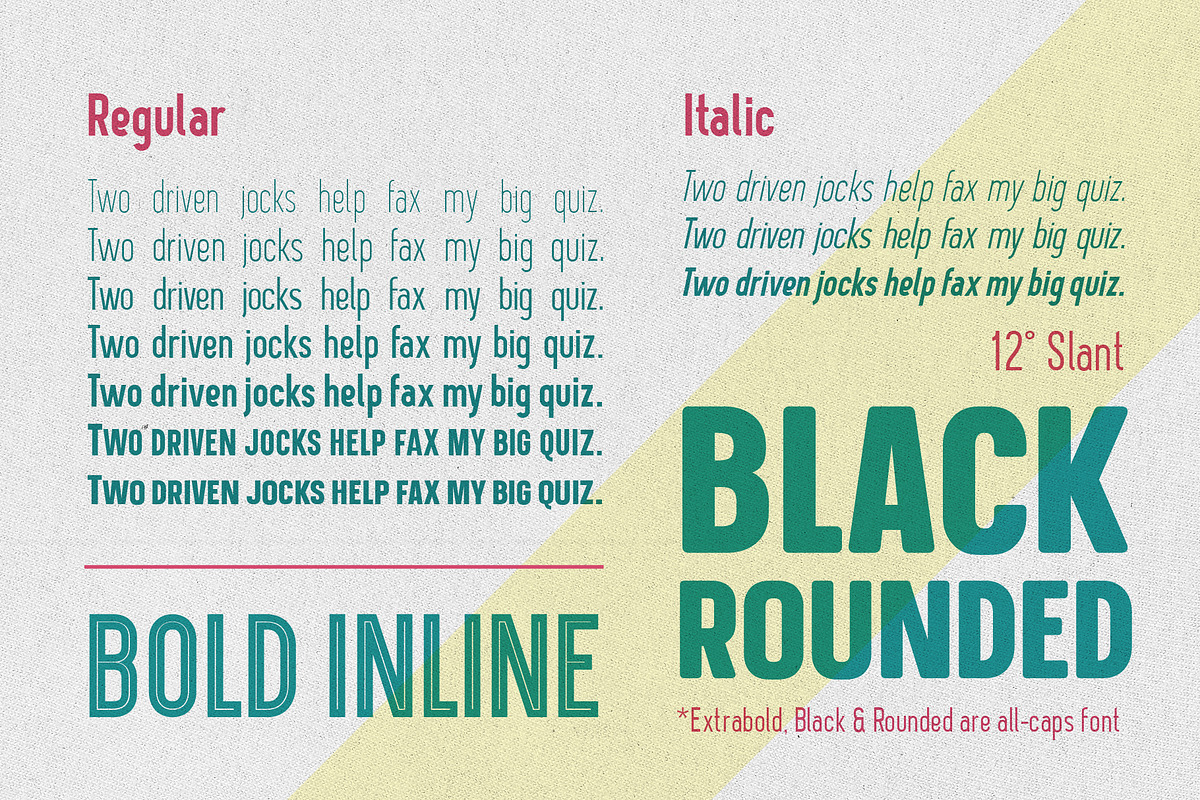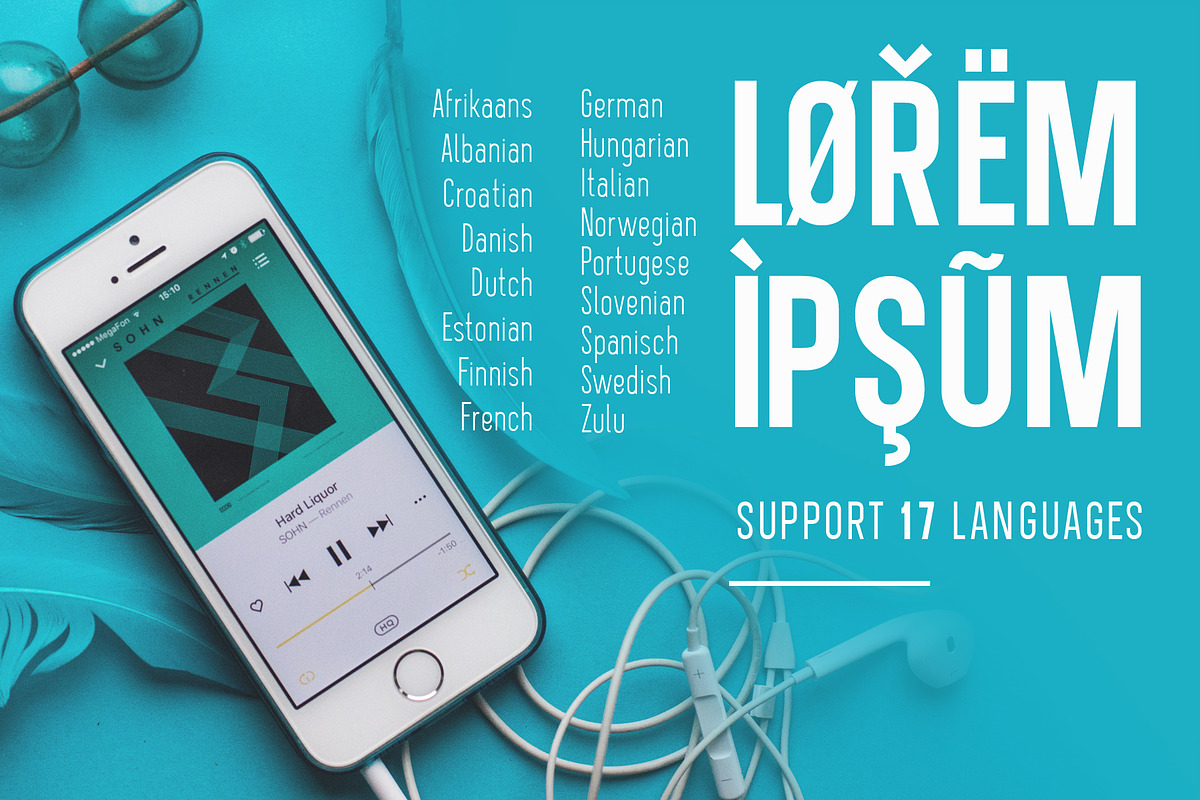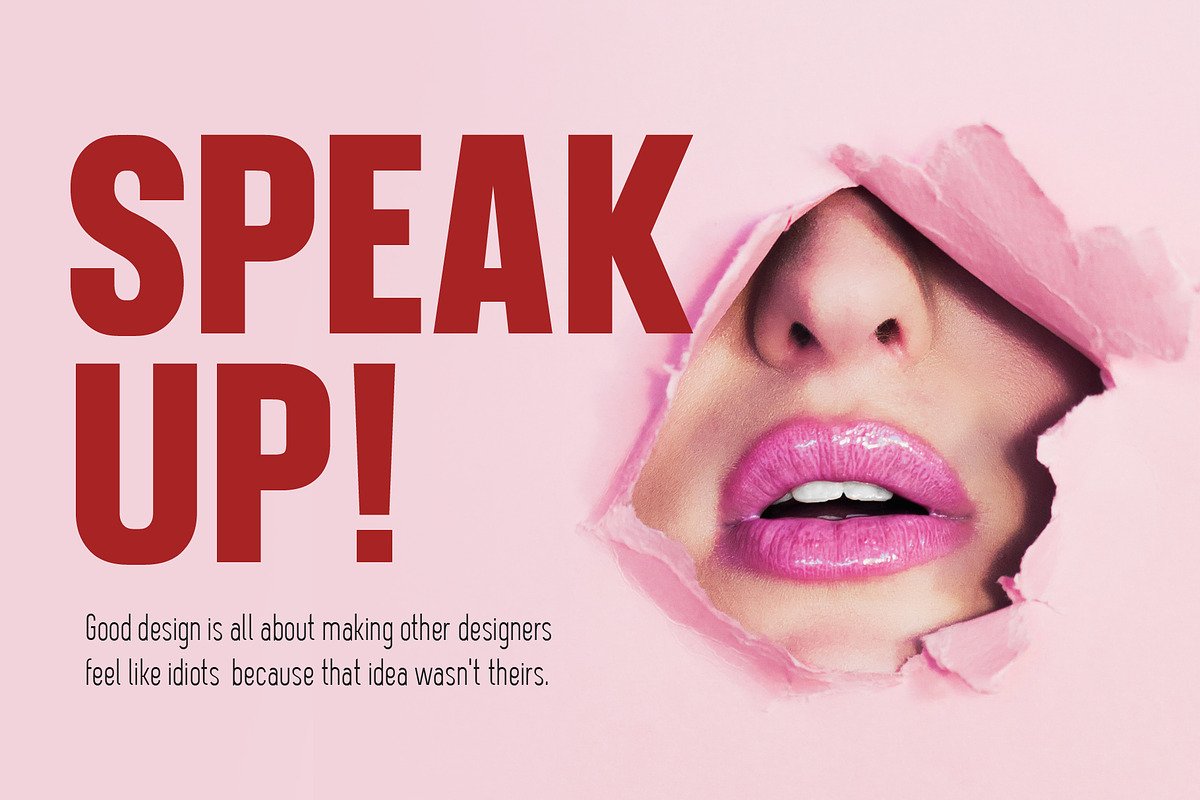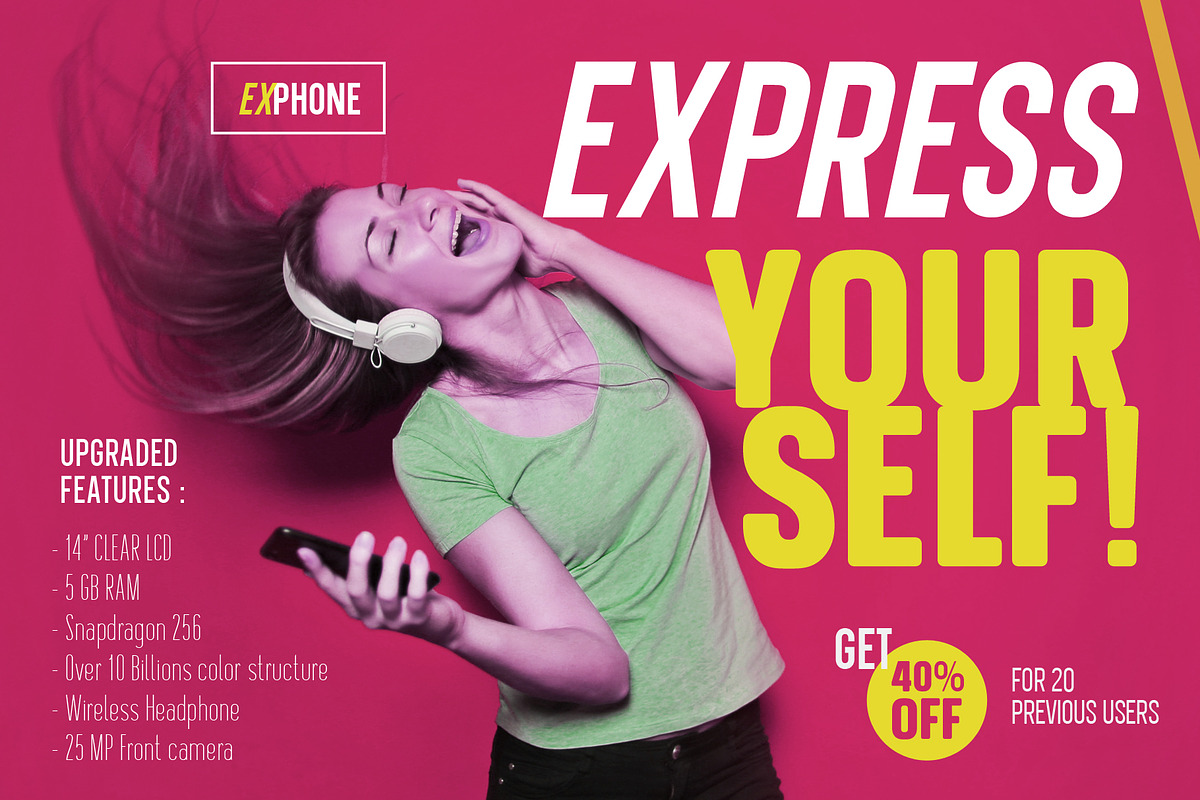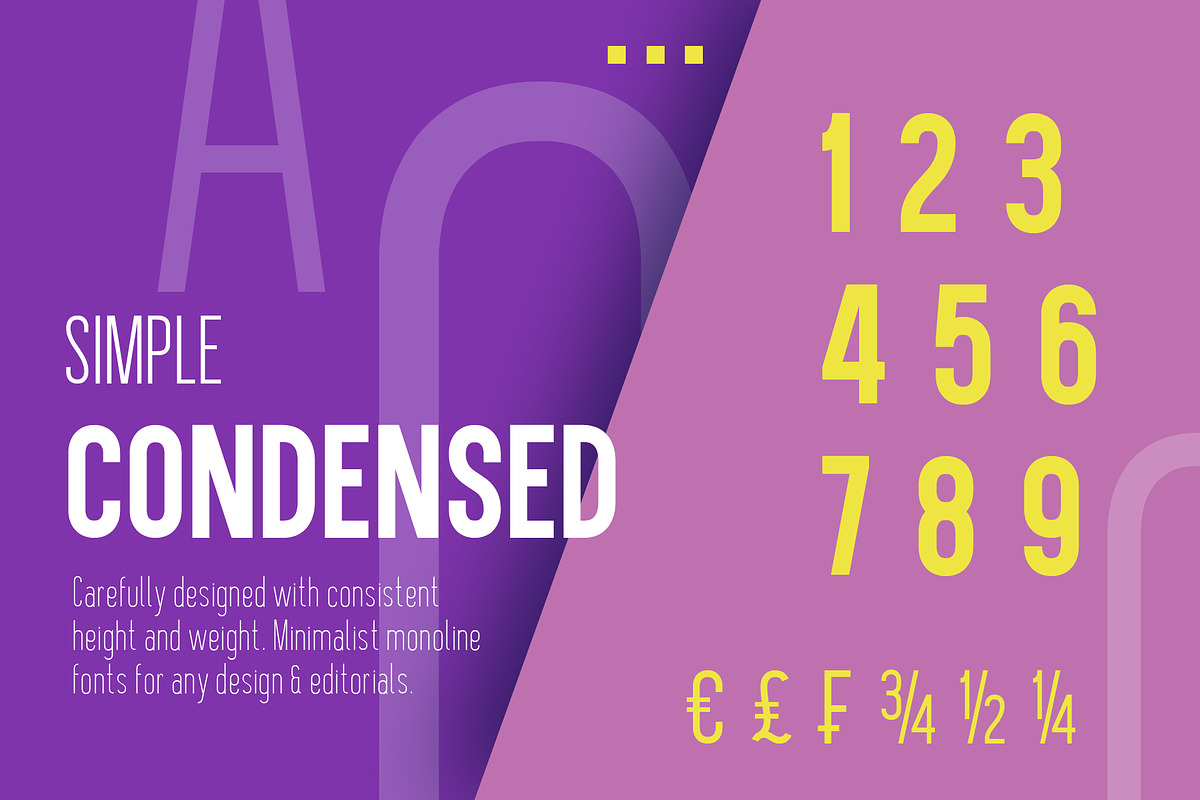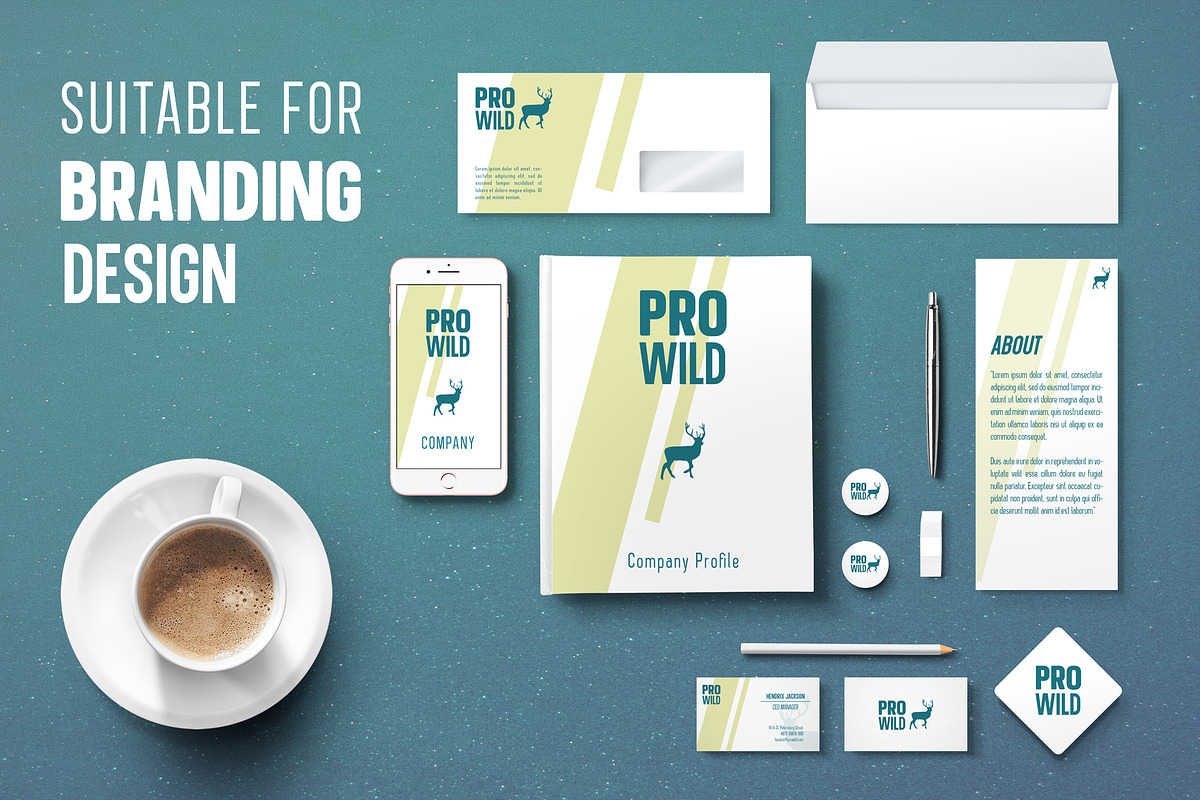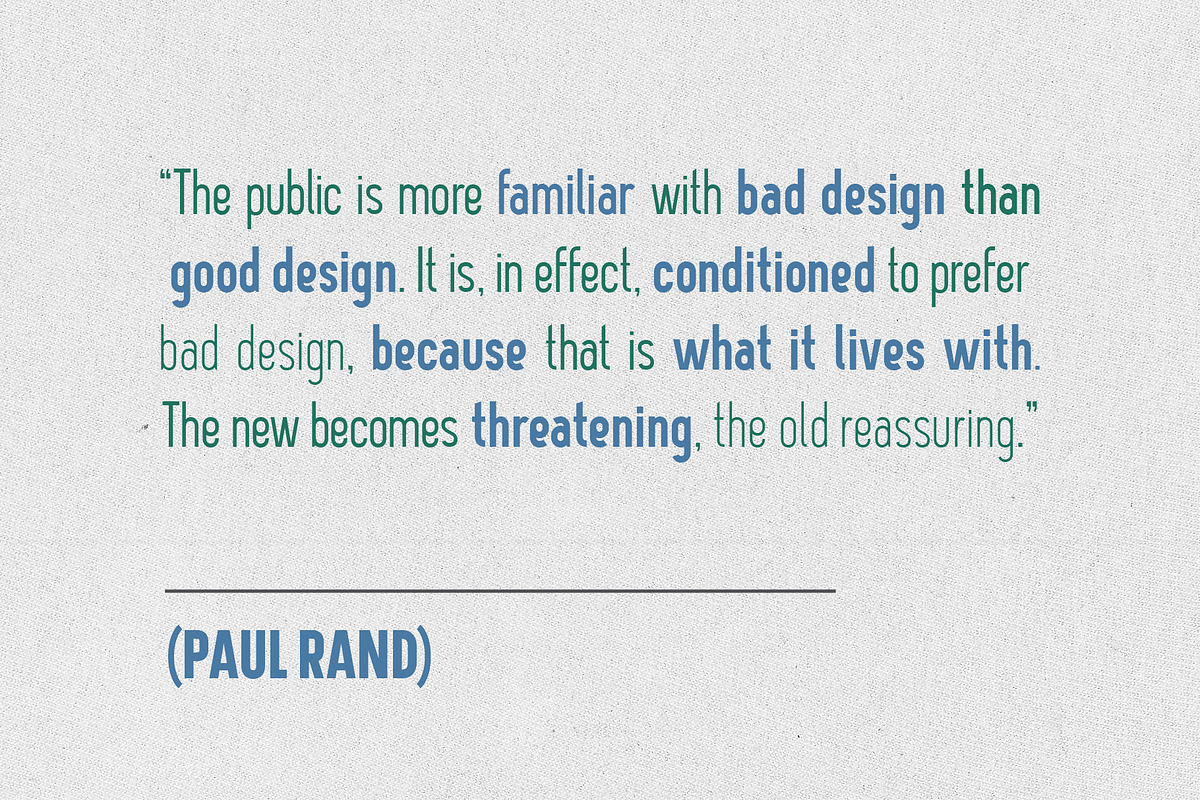
Davish Font Family
Introducing Davish Sans serif font. The minimalist monoline font family. Carefully designed based on condense height and expanded in 7 weight and 5 styles.
Thin, Light, Normal, Medium & Bold styles are recommended for editorial design such like : Headline, sub headline, body copy, foot note, document layout, and etc. You can use the italic styles too, to give you any options.
Other styles : Bold-Inline, Extra-Bold, Black & Black Rounded also good for poster, brochure, magazine, branding project, motion graphic, info graphic, app design, and more!
Inspired from classic typography and modern minimalist design. Davish featured :
Small-Caps (Extra-Bold, Black, Black-Rounded)
Available in TTF & OTF formats, This font family has over 300 glyphs with multilingual support : Afrikaans, Albanian, Croatian, Czech, Danish, Dutch, Estonian, Finnish, French, German, Hungarian, Italian, Norwegian, Portugese, Slovak, Slovenian, Spanisch, Swedish, Zulu